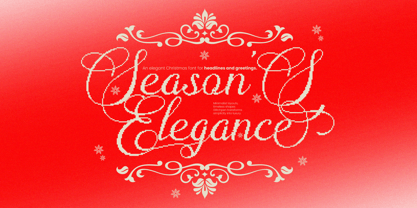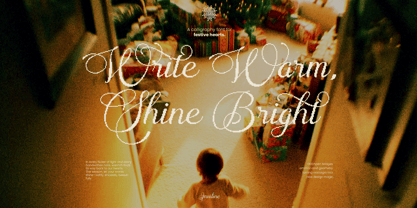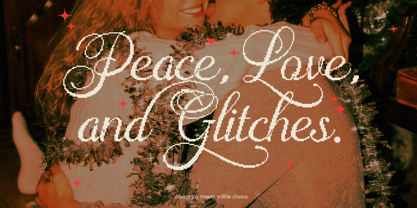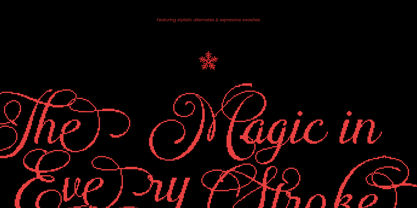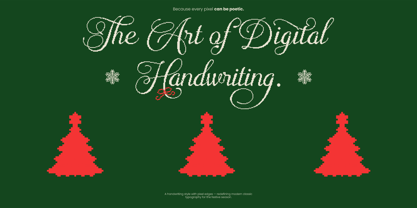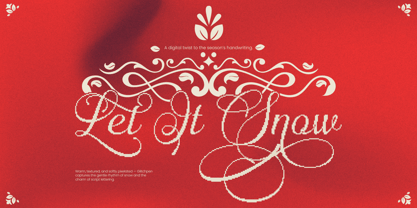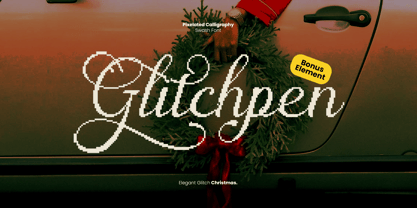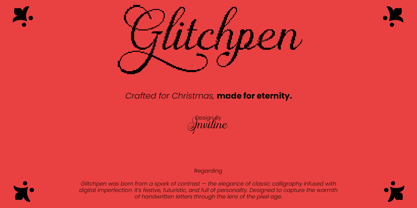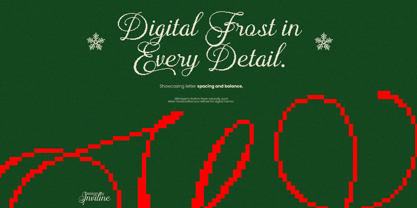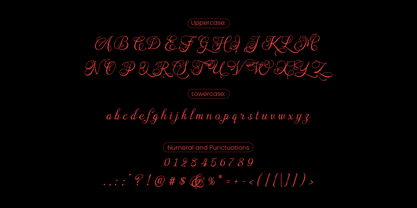
Glitchpen Pixalete
by Inviline
The Glitchpen Pixalete Font Family was designed by Virgiawan Listanto and published by Inviline. Glitchpen Pixalete contains 1 styles. More about this family
Glitchpen is a pixelated calligraphy font that merges traditional elegance with retro digital flair—inside you'll get uppercase & lowercase characters, punctuation, numbers, multilingual support, and expressive alternates for stylistic variety; it’s the perfect typeface for Christmas cards, holiday packaging, nostalgic posters, festive branding, retro digital themes, event invitations, editorial layouts, and any design where a touch of glitchy charm and timeless warmth can coexist beautifully to deliver heartfelt messages with a bit of joyful chaos.
Designers: Virgiawan Listanto
Foundry: Inviline